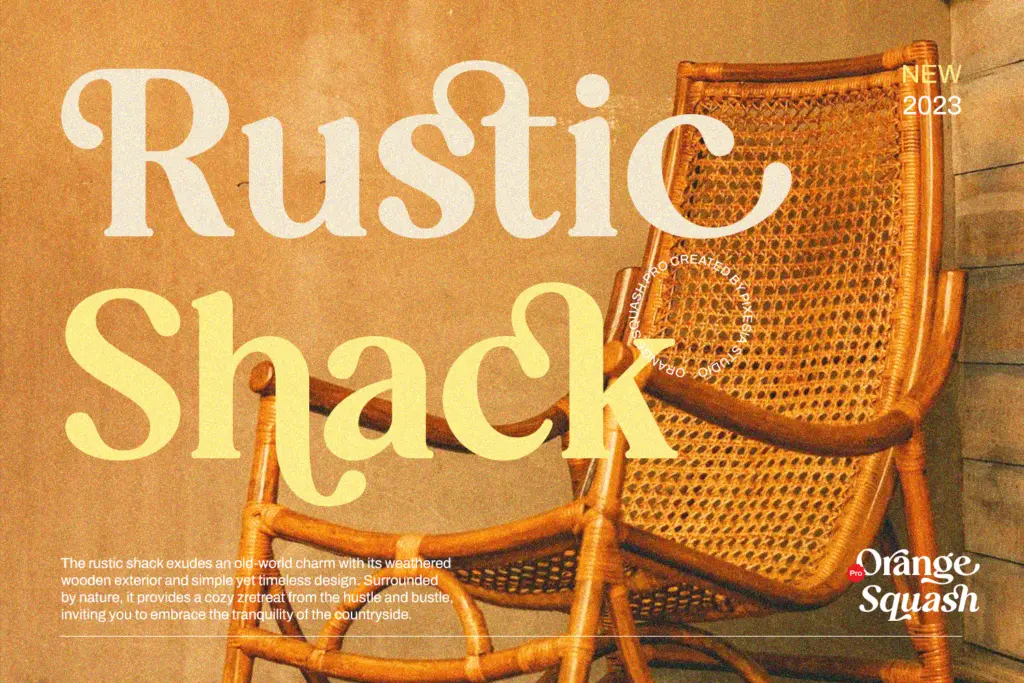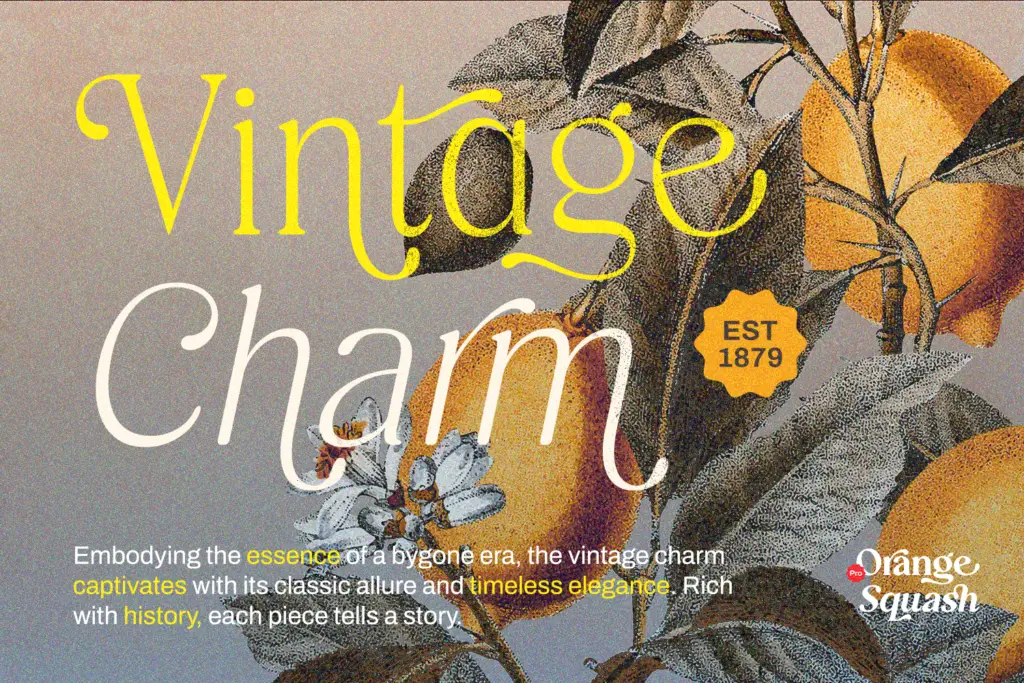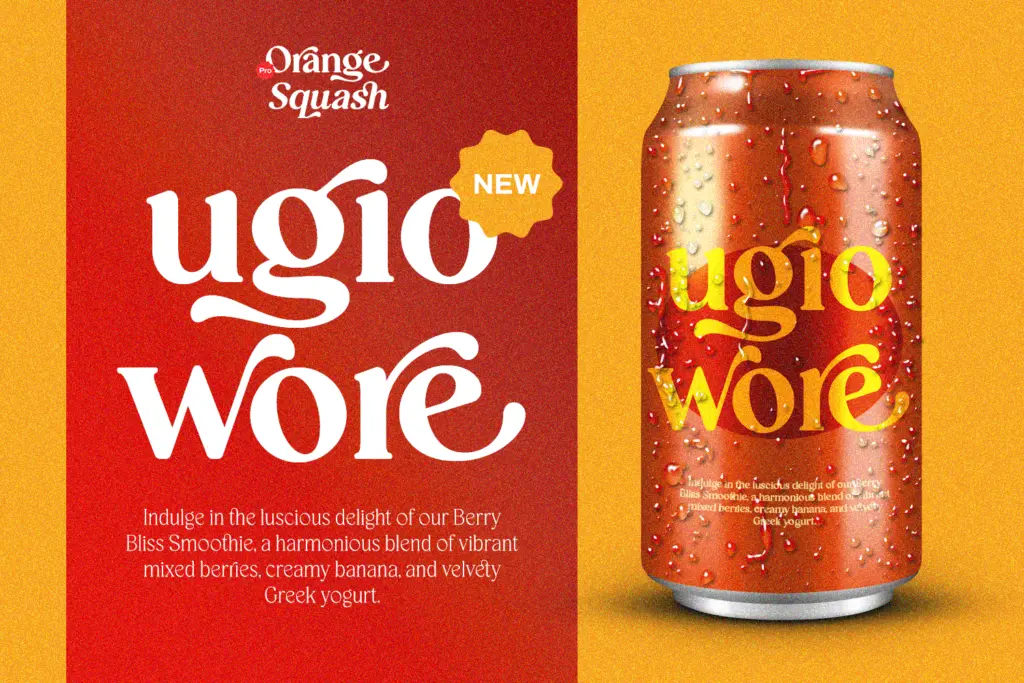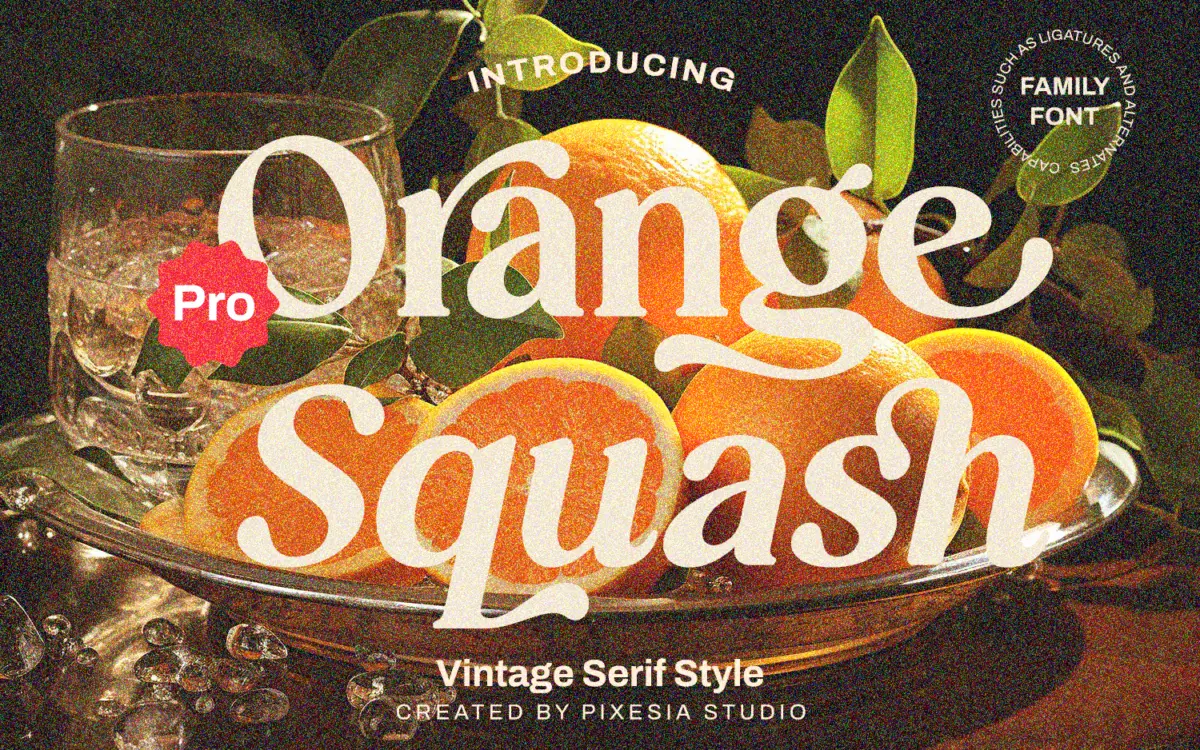
Orange Squash Pro leans into the chunky, slightly retro serif look that’s become shorthand for 70s-inflected branding — thick slab-like serifs, curves that bulge rather than taper, and a general heaviness that reads as friendly rather than aggressive. It’s not trying to be a faithful revival of any particular period style; it’s closer to a contemporary illustrator’s idea of vintage, drawn with confidence and a bit of swagger. The letterforms have a hand-finished quality without tipping into full script territory — you can see the brush or pen gesture in the curves of the bowls, but the structure stays disciplined enough to hold together as a proper serif family.
The two weights and four styles give it more range than a single-cut display font, though don’t expect the kind of nuanced weight progression you’d get from a text-focused serif built for long documents. This is a font drawn for impact at large sizes, and the drawing choices — generous curves, deliberate imperfections in the terminals — support that reading.
Stylistic alternates and ligatures are the main functional additions here, letting you swap out default letterforms for looser or more decorative versions where a headline needs a bit more character. That’s useful for lockups and logotypes where a single word gets a lot of scrutiny, less useful once you’re setting more than a line or two. The PUA encoding means the alternates are reachable without a glyphs panel, which matters if your workflow is Word or a program without OpenType feature support — a real practical plus for anyone outside the Adobe suite.
Language coverage across 68 Latin-based languages is broad enough for most European and some African-language branding work, though it’s worth checking your specific diacritic needs before committing a full identity system to it. There’s no indication this extends to Cyrillic, Greek, or non-Latin scripts, so plan accordingly for multilingual packaging runs.
This is a display font first and foremost — logos, packaging headers, poster type, fashion and cosmetics branding where a font needs to carry mood on its own. The vintage-fun quality suits product lines that want warmth without looking twee: think small-batch food and drink labels, boutique fashion headers, editorial pull quotes. The alternates are genuinely handy for logotype work, where swapping one letter’s curve can make an otherwise generic word mark feel bespoke.
Where it won’t help is body copy, dense information design, or anything needing a quiet, neutral voice — the chunky serifs and playful curves are loud by design and will fight for attention in any context that isn’t meant to shout a little. Pair it with a plain sans or a quieter serif for supporting text, and keep it to headlines, wordmarks, and short-format design where its personality is the point rather than the problem.
If you like chunky, rounded retro serifs, compare it with Cooper Black, Oswald Cooper’s 1922 design.
- Alternates and ligatures give logotype work genuine variety without extra tools
- PUA encoding makes special characters accessible outside Adobe apps
- Broad language coverage across 68 Latin-based languages suits varied branding briefs
- Heavy, decorative letterforms make it unsuitable for anything beyond short headline-length text
- No indication of non-Latin script support, limiting use on international packaging
Orange Squash Pro is a confident, well-drawn display serif with real personality, but it's a one-trick font by design — great for headlines and logotypes, useless for body copy. If your project needs a bit of retro warmth at large sizes, it delivers; if you need range beyond that, look elsewhere.